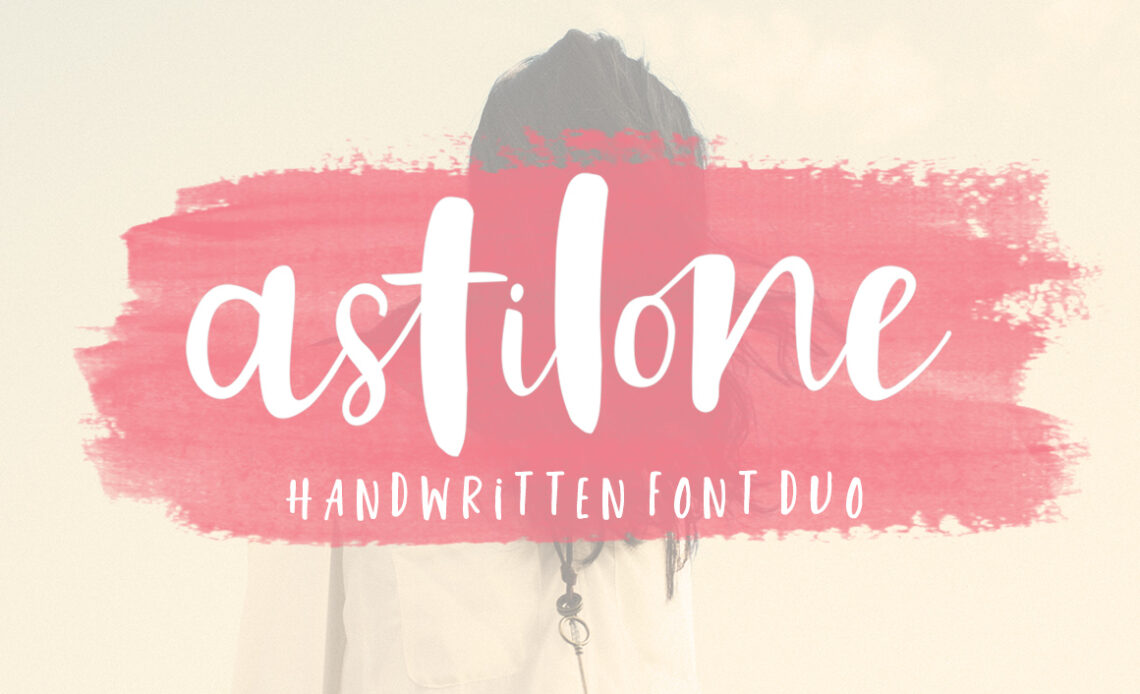
Introducing the Astilone Font Duo, a match made in typographic heaven! This hand-brushed font, crafted with the stroke of a brush and the flow of ink, is a feast for the eyes. Its bold and irregular baseline adds a touch of playful charm, inviting you to explore the world of unique typography.
From elegant invitations to captivating social media posts, the Astilone Font Duo is your key to unlocking creative bliss. Its captivating script style, reminiscent of a handwritten letter, adds a personal touch that resonates with your audience. Whether you're a seasoned designer or just starting your creative journey, this font duo is your perfect companion.
Experience the magic of the Astilone Font Duo, where creativity meets versatility. Let your imagination dance across the page as you weave words into captivating designs. Its bold and flowing strokes command attention, while the irregular baseline lends a touch of whimsy.
Elevate your projects to new heights with the Astilone Font Duo. Its hand-crafted charm adds depth and emotion to your creations, making them stand out from the crowd. From heartfelt love letters to thought-provoking posters, the Astilone Font Duo is your secret weapon for captivating your audience.
Make a statement with every design, every word, and every letter. Join the creative revolution with the Astilone Font Duo, where typography becomes art. Explore a realm of possibilities, where your imagination knows no bounds.